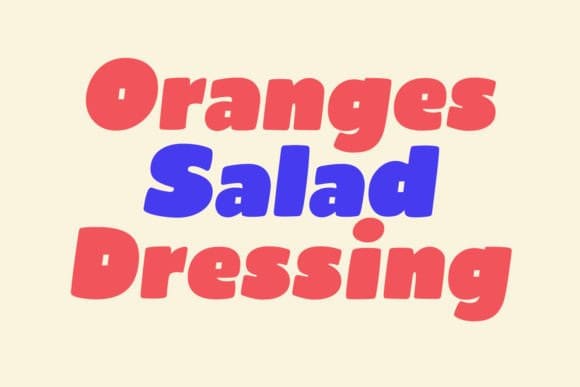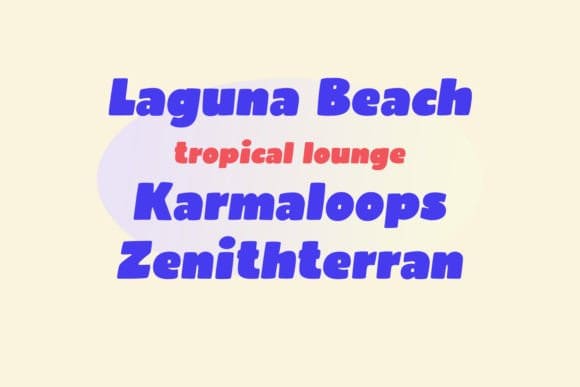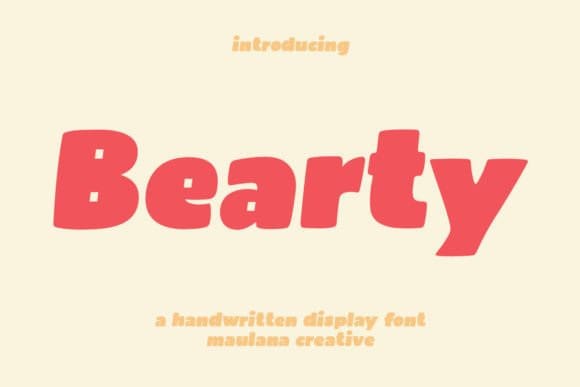
BEARTY DISPLAY FONT
Bearty Display Font is an enchanting and modern display font. Bearty is an energetic and attractive font that can add a variety of feelings to your designs.